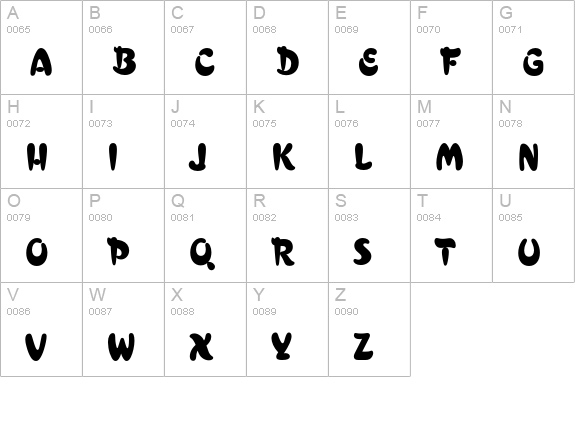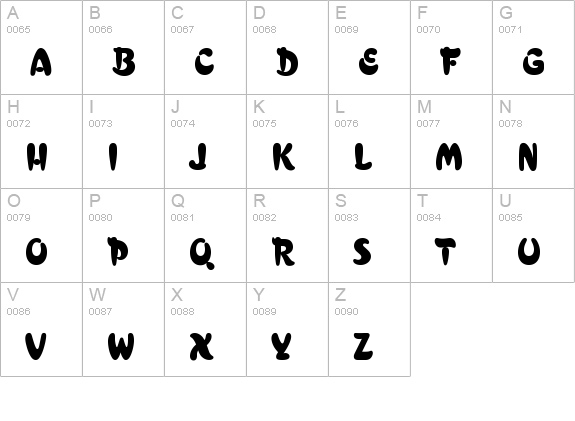
CroissantEF Font Details
Introducing CroissantEF, a delightful and elegant font that exudes sophistication and charm. With its graceful curves and stylish appeal, CroissantEF is perfect for adding a touch of luxury to your design projects. Whether used for branding, invitations, or social media posts, this versatile font is sure to make a statement. What's even better is that CroissantEF is available for free download at FontsMarket.com. Now you can easily access this premium font without breaking the bank. Don't miss out on the opportunity to elevate your designs with the timeless beauty of CroissantEF. Download it today and let your creativity shine!